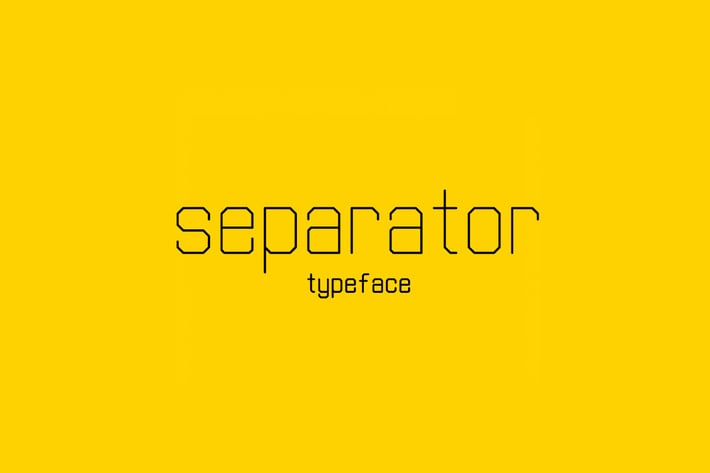
Separator typeface
Separator was designed as an experimental typeface. It’s a simple sans serif font created without curves.
Best used for headlines or anything in larger point sizes. It’s available in five weights including extra light, thin, light, regular and bold.
The typeface includes 298 glyphs including uppercase letters, lowercase letters, numbers, punctuation, symbols and other marks.